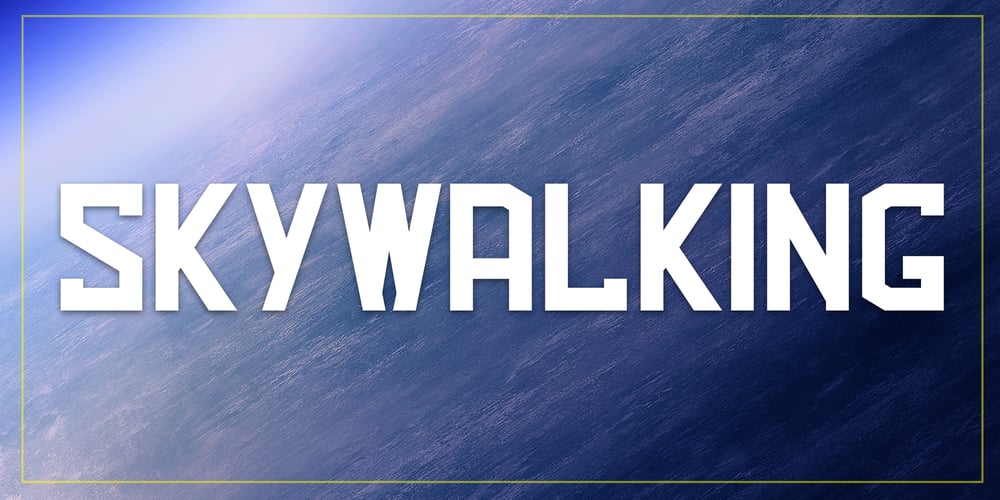
Skywalking
Skywalking font
Skywalking Font Family was designed by Mark Silva and published by The Bigmind Designs. Skywalking contains 4 styles and family package options. The Skywalking font is inspired by sci-fi movies and video games. It purposely avoided the us of curves and preferred the sharp edges to get a more robot aesthetic into it. Designed by Mark Silva, the font is suited for logos, company branding, game titles and shirt designs.